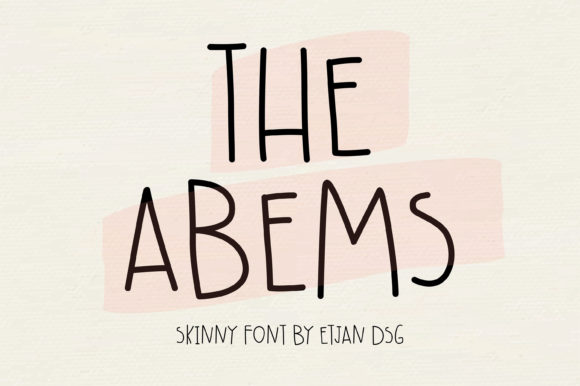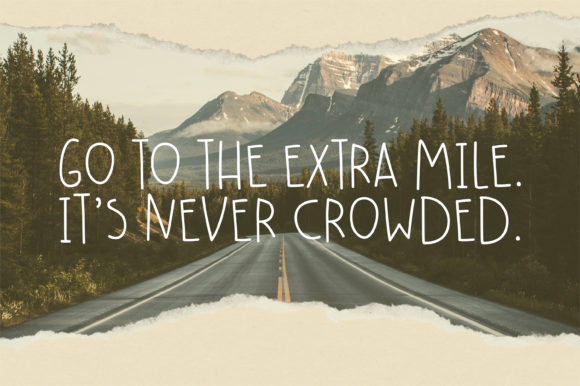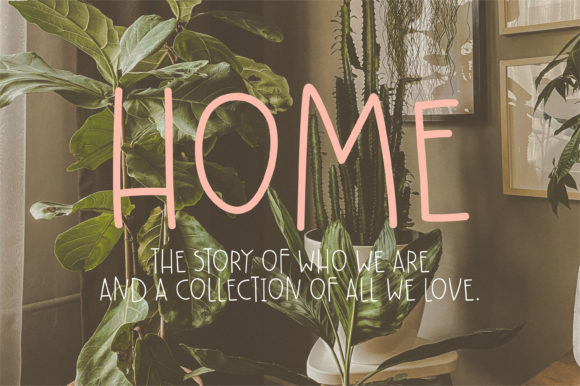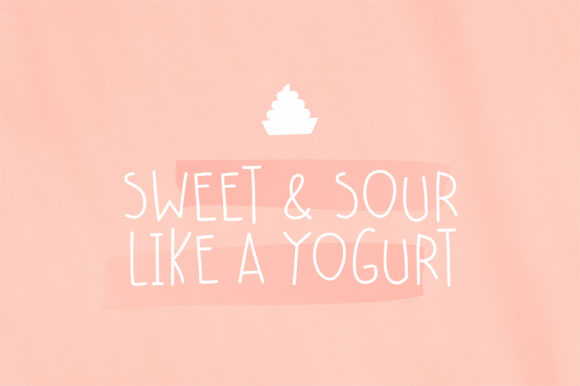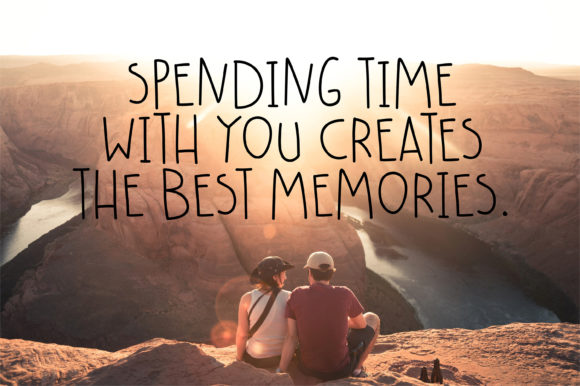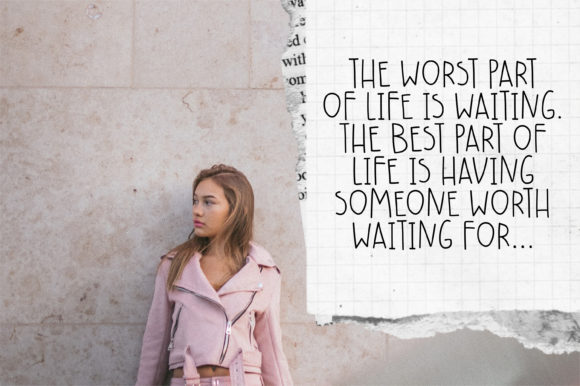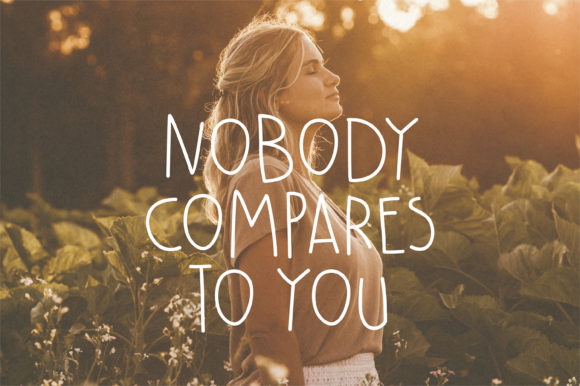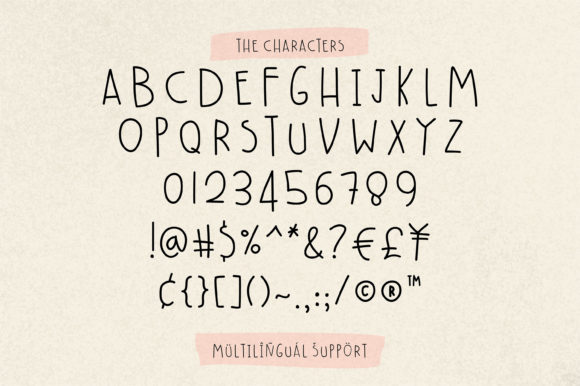
The Abems Font
About The Abems Font
The AbemsĀ is a cute and simple lettered handwritten font that can be used for all chalkboard quotes or teaching material! Its authentic look will add a personal and realistic feel to your designs.